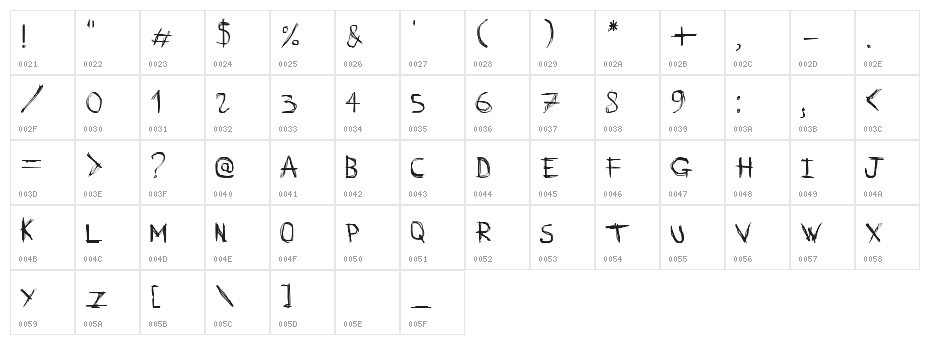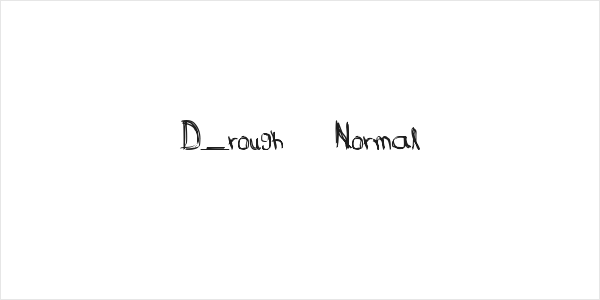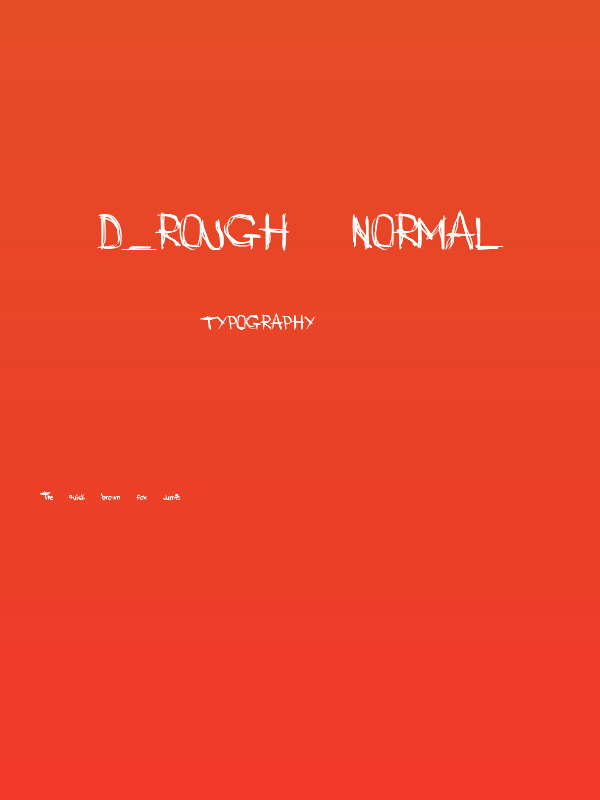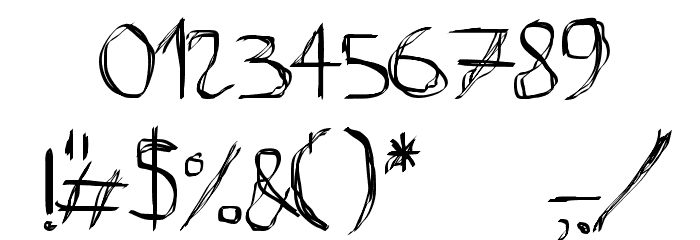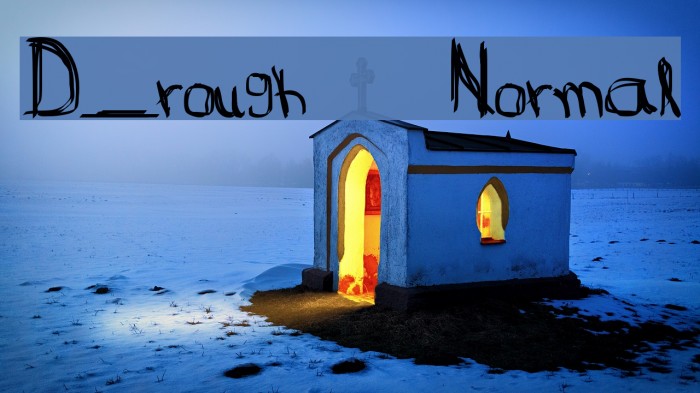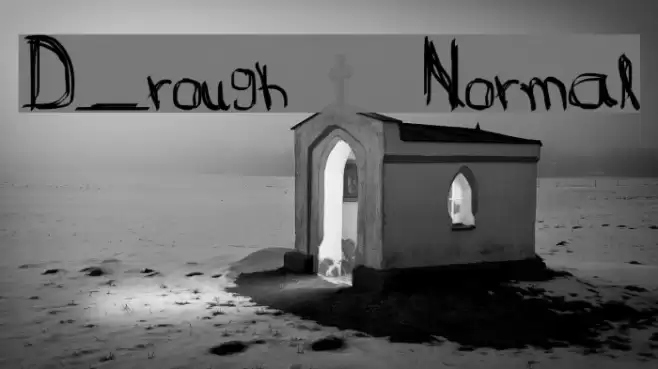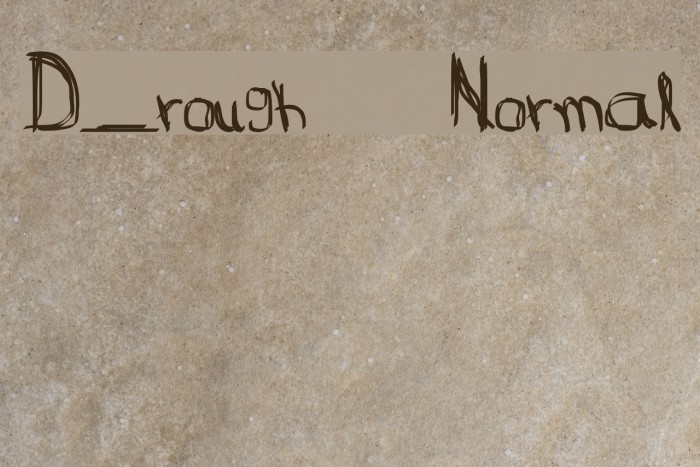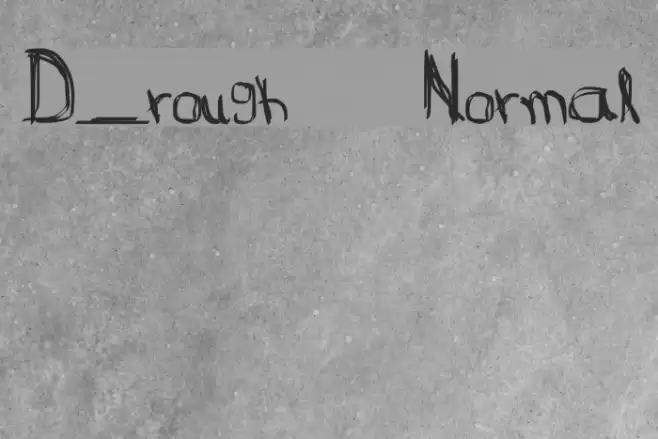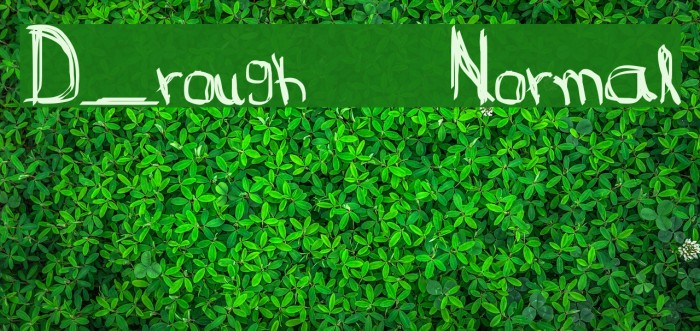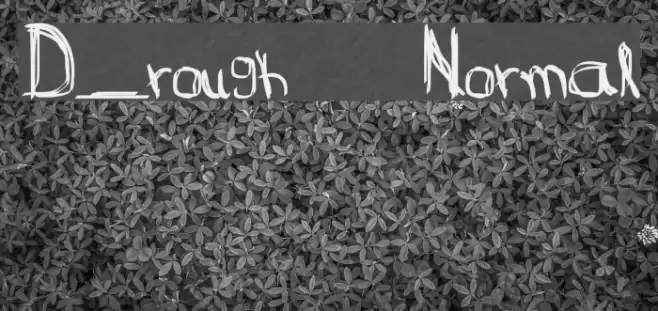
D_rough Normal Font
D_rough Normal Description
This font features a rough, hand-drawn style with a distinctly edgy and chaotic appearance. The strokes are uneven and jagged, giving it a raw and expressive character. The uppercase and lowercase letters maintain a consistent roughness, while the numbers and special characters follow the same aesthetic. This font exudes a sense of rebellion and artistic flair, making it ideal for projects that require a bold and unconventional look. The irregularities in the strokes add a dynamic and energetic feel, perfect for grabbing attention and making a statement.
| Proposed Projects | Ideal for album covers, posters, graffiti art, and edgy branding projects. |